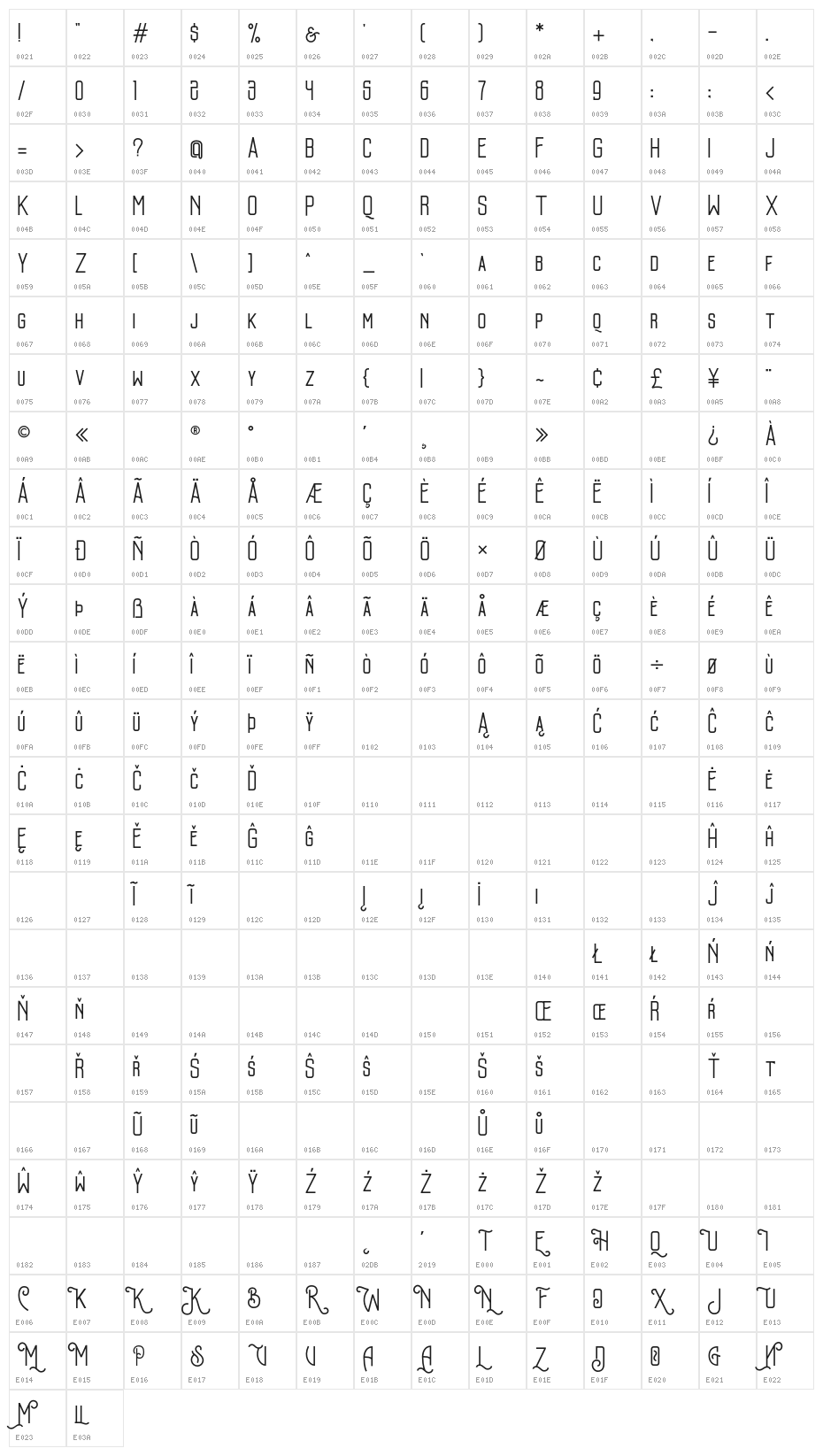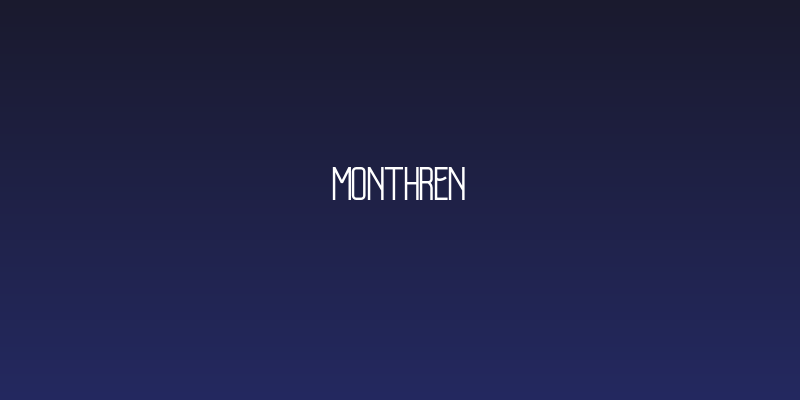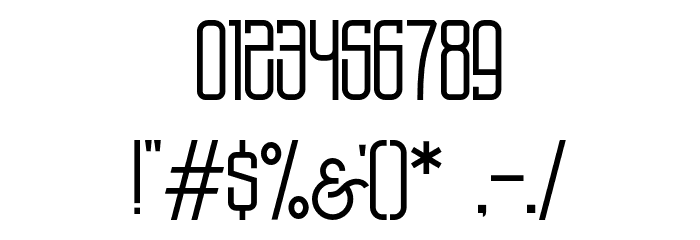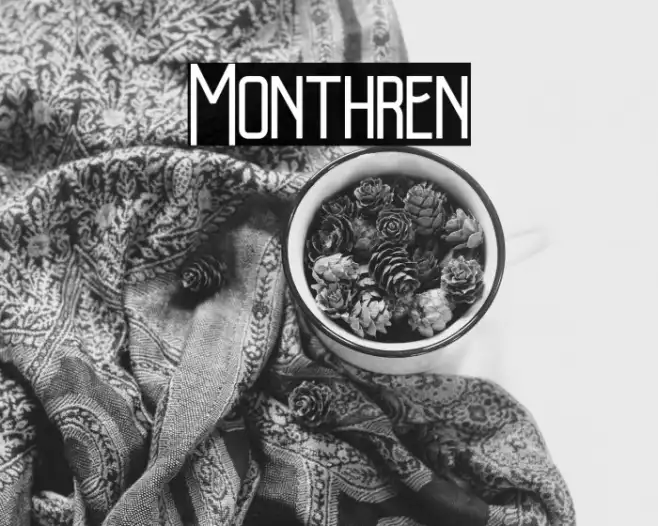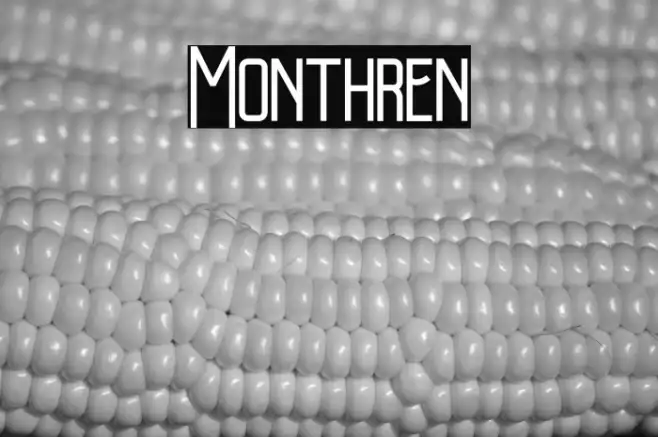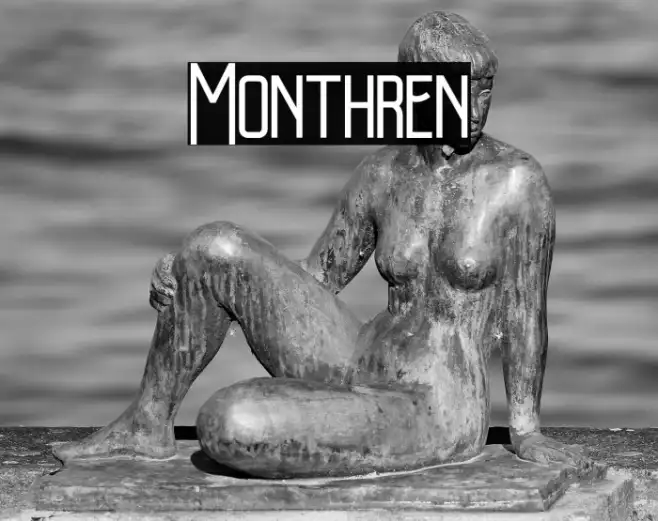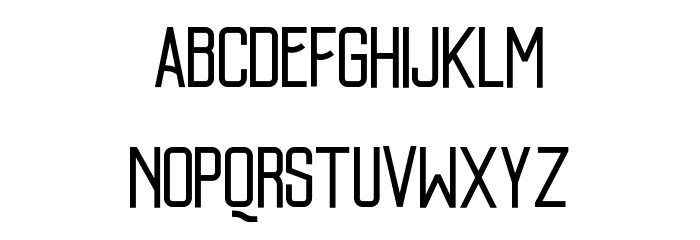
Monthren Font
Monthren Description
This font features a modern and geometric design with clean, straight lines and a uniform stroke width. The characters are tall and narrow, giving it a condensed appearance. The uppercase and lowercase letters maintain a consistent style, with sharp angles and minimal curves, creating a sleek and contemporary look. The numerals and special characters follow the same design principles, ensuring a cohesive appearance across all glyphs. The font's simplicity and clarity make it highly readable, while its unique style adds a touch of sophistication.